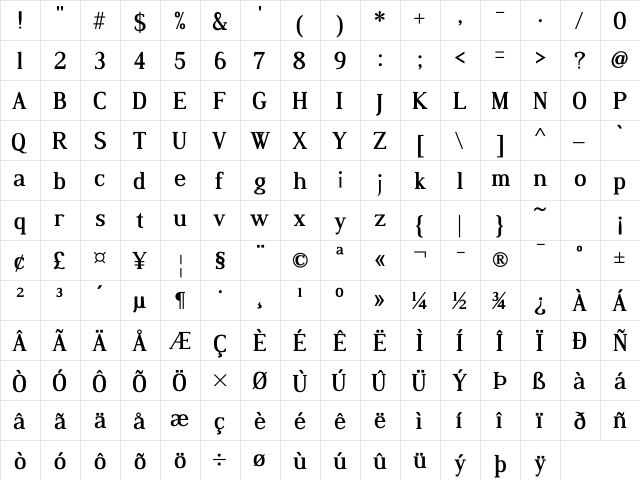
Dustismo Roman Regular Font Preview
Dustismo Roman Regular
Dustismo Roman Regular Font Details
| Designer | Dustin Norlander |
Design Context for Dustismo Roman Typeface
Dustismo Roman takes a measured approach to typography — its balanced proportions and neutral character make it a reliable workhorse for both digital and print work.
Pro Tip: Pair Dustismo Roman with a font of contrasting weight or personality to build a more expressive typographic hierarchy.